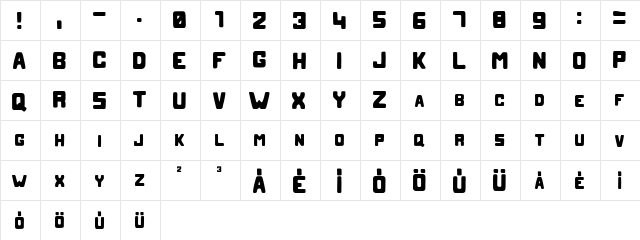
Blobb Regular Font Preview
Blobb Regular
Blobb Regular Font Details
Design Context for Blobb Typeface
Blobb is a composed and adaptable typeface that performs quietly and consistently across a wide range of design contexts.
Pro Tip: Pair Blobb with a font of contrasting weight or personality to build a more expressive typographic hierarchy.